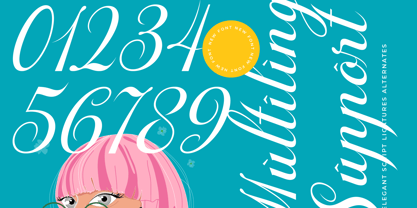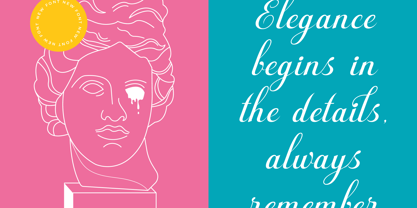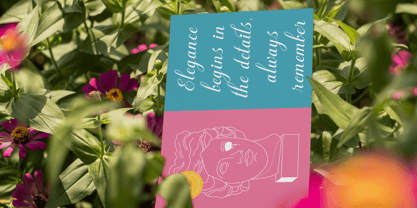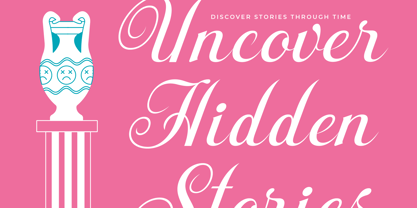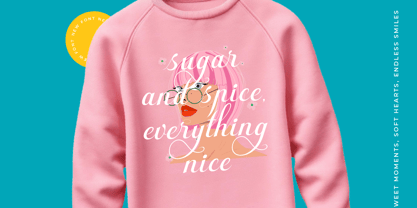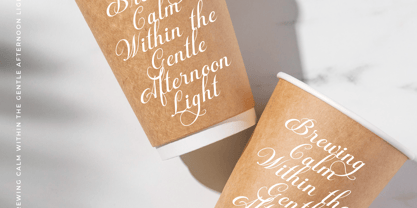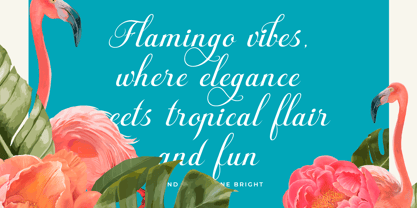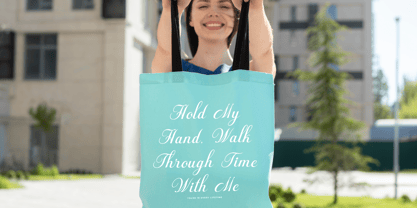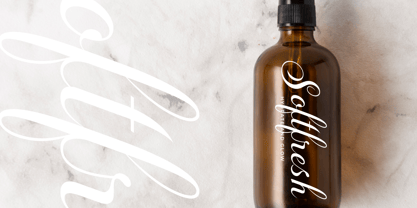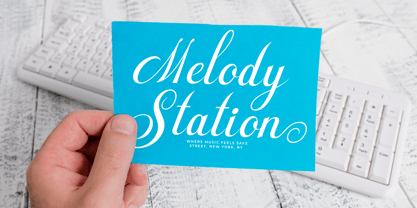
Fagibestin
The Fagibestin Font Family was designed by Heru Utama Putra and published by Timelesstype Studio. Fagibestin contains 2 styles and family package options. More about this family
Fagibestin - Elegant Script Font , from Timelesstype, Suitable for any projects such as: logos, branding projects, homeware designs, product packaging, mugs, quotes, posters, shopping bags, t-shirts, book covers, name card, invitation cards, greeting cards, label, photography, watermark, special events, and all your other luxury and beautiful projects that need a Luxury Script taste.